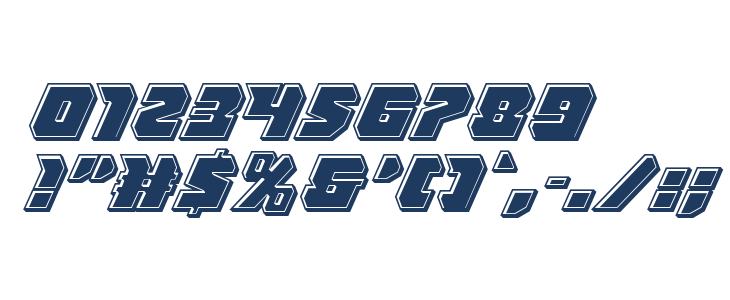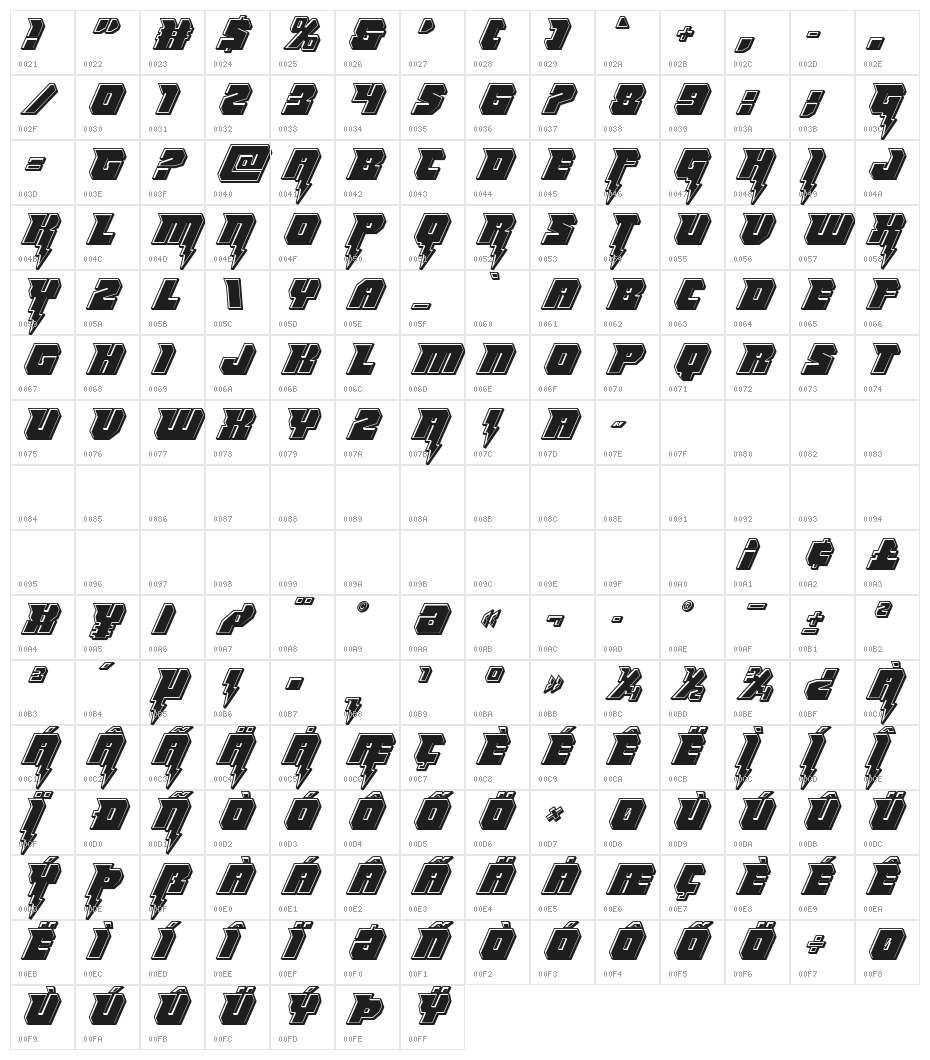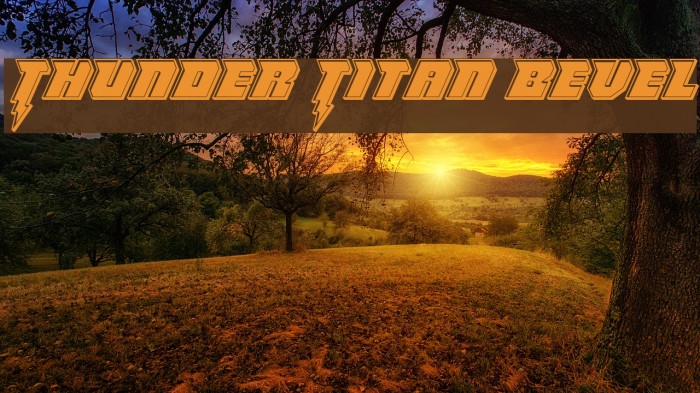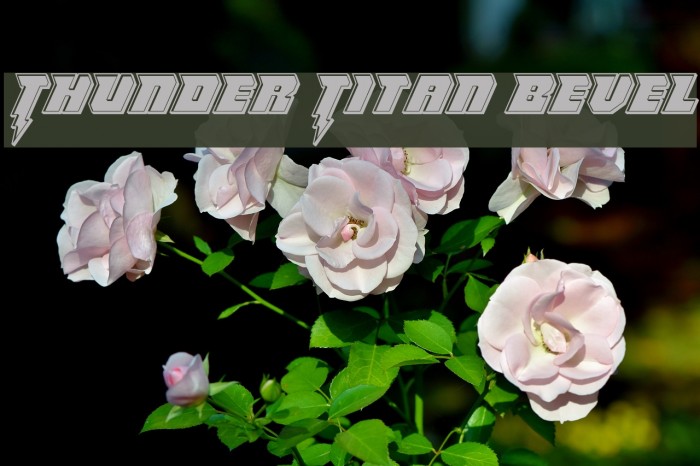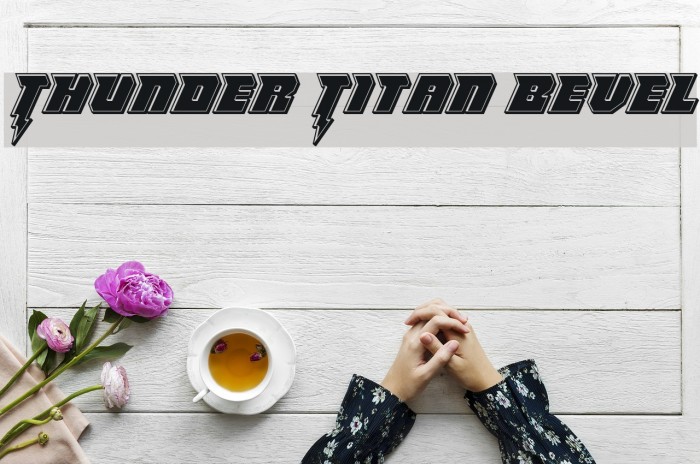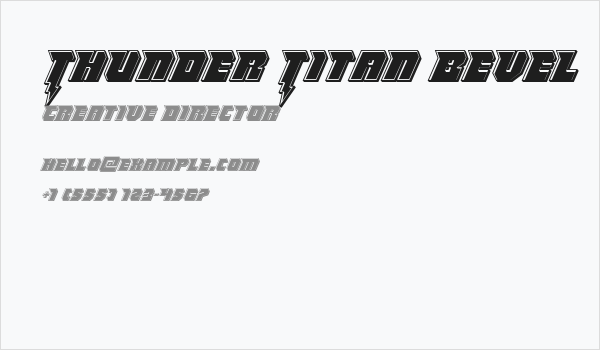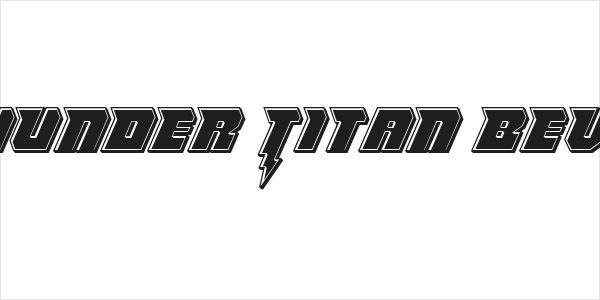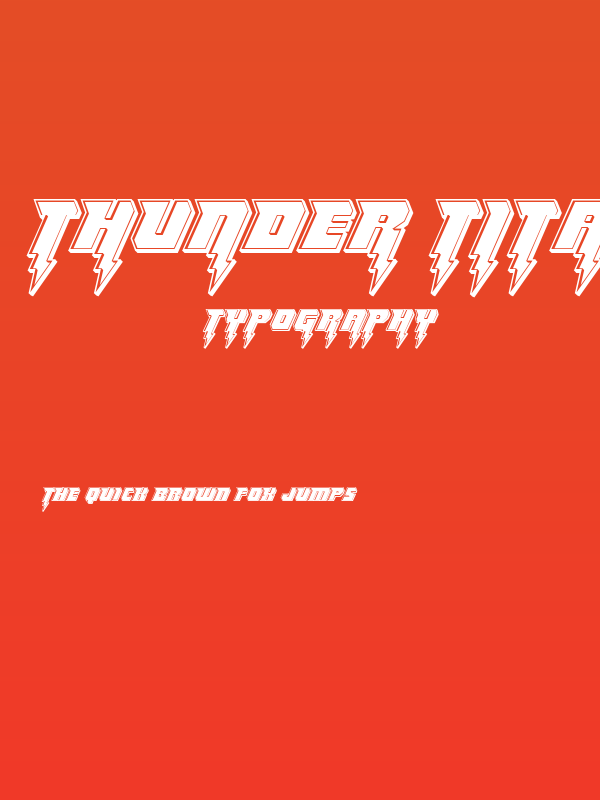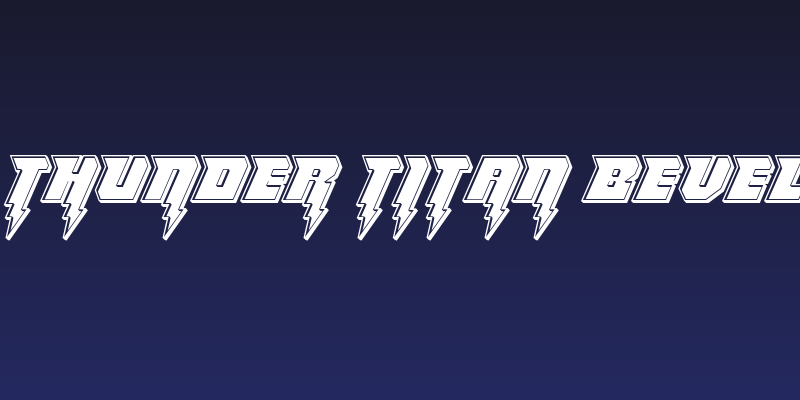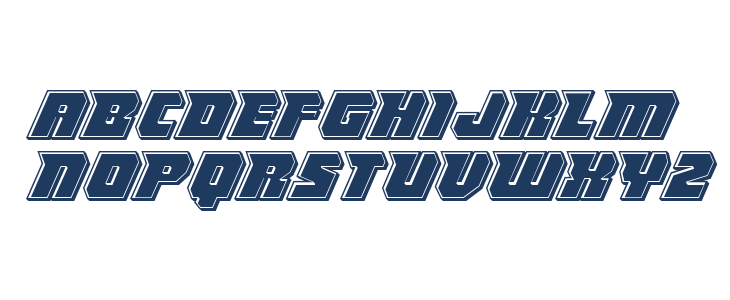
Thunder Titan Bevel Font
Thunder Titan Bevel Description
This font features a bold and dynamic design with a striking bevel effect, giving each character a three-dimensional appearance. The uppercase letters are particularly distinctive, incorporating sharp angles and lightning bolt-like extensions that add an energetic and powerful feel. The font's thick strokes and bold outlines make it highly visible and impactful, suitable for attention-grabbing designs. The numbers and special characters maintain the same bold style, ensuring consistency across different uses. Its unique style is perfect for projects that require a strong visual impact.
| Proposed Projects | Ideal for sports team logos, music album covers, video game titles, and any project needing a bold, energetic typeface. |